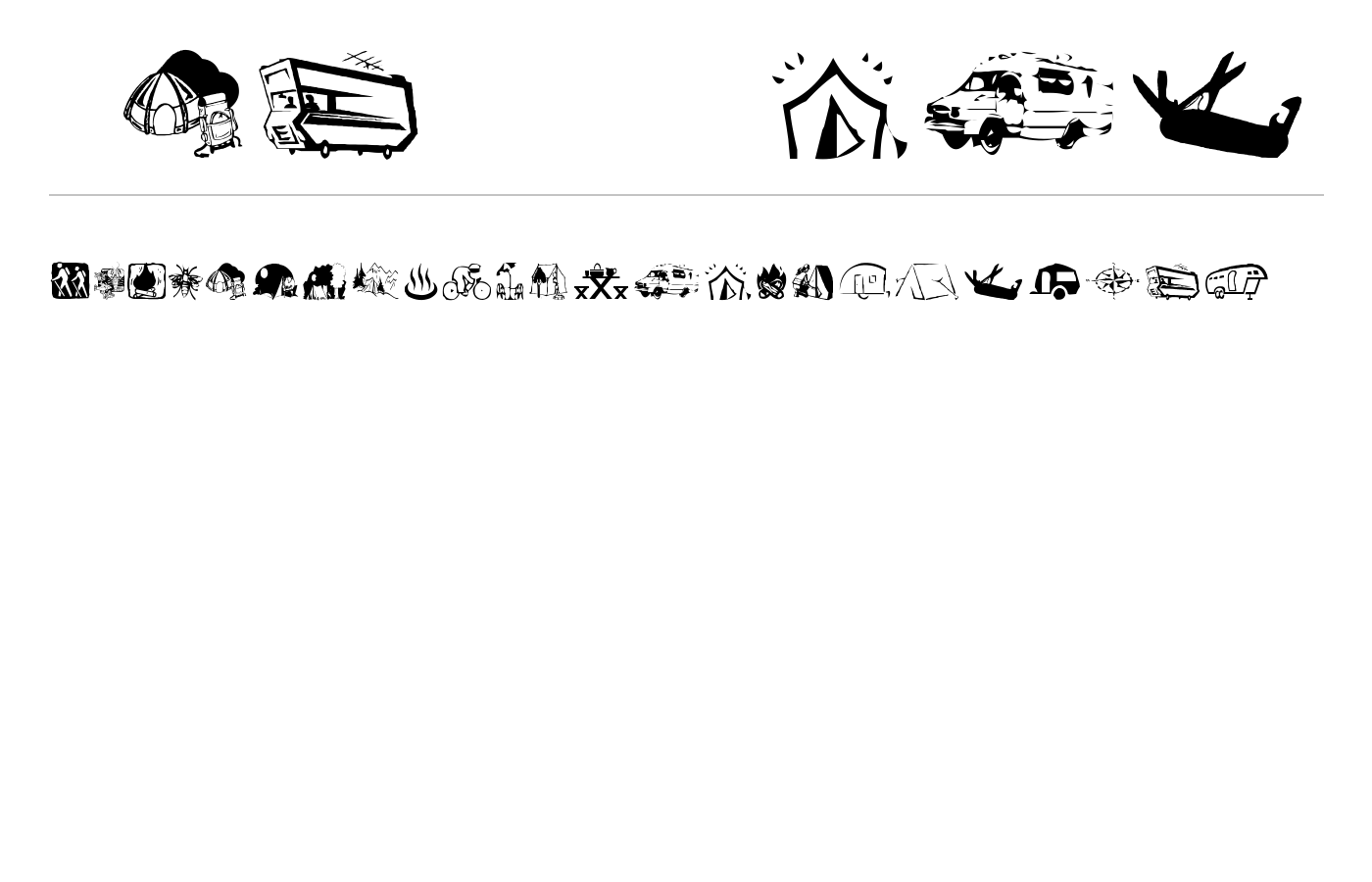
AEZ Camping is a playful and detailed dingbat font featuring a variety of hand-drawn camping and outdoor icons, from tents and campfires to RVs and wildlife. Its bold, whimsical shapes make it ideal for adding a fun, adventurous touch to travel brochures, outdoor event branding, or recreational merchandise, capturing the spirit of nature and exploration in a visually engaging way.
AEZ camping Font
About AEZ camping Font
| Font family | AEZ camping Font |
| Designer | Anastacia E. Zittel |